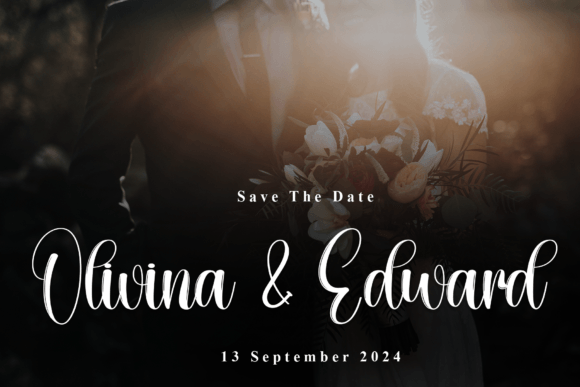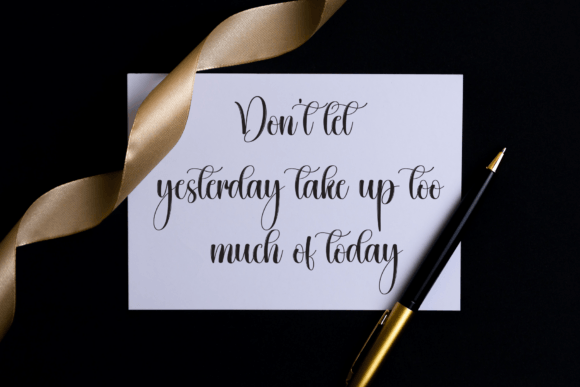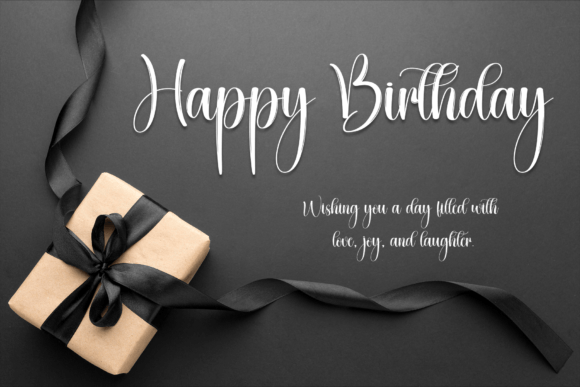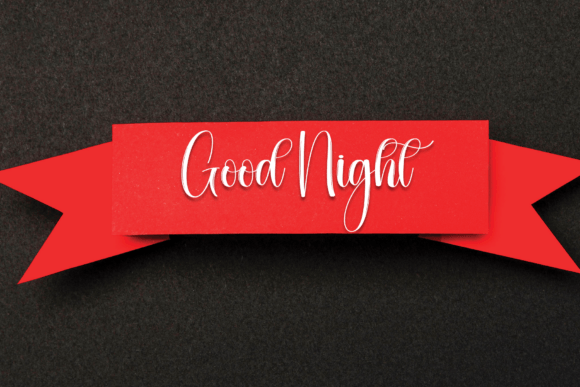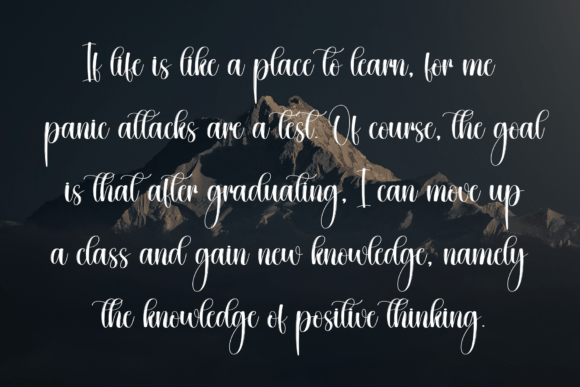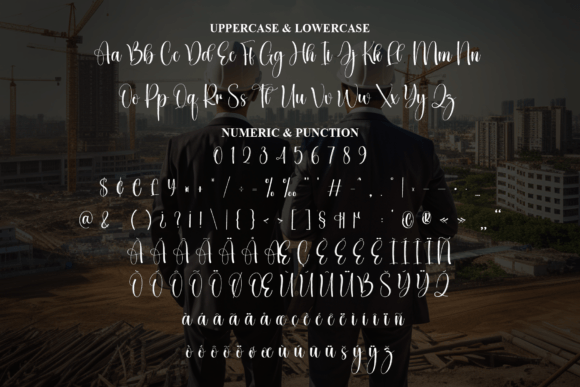
Introducing Builders Font: Elevate Your Designs with Elegance
Are you a designer, crafty enthusiast, or someone who loves to add a personal touch to their creative projects? Look no further than Builders Font, a stylish script font that is sure to take your designs to the next level. With its smooth and flowing design, Builders Font is perfect for creating beautiful invitations, posters, and more.
The Characteristics of Builders Font
Builders Font boasts an elegant and refined design, characterized by its smooth curves and lines. This stylish script font is carefully crafted to provide a sophisticated and luxurious feel to any design project. Whether you’re working on a wedding invitation, a poster, or a branding project, Builders Font is the perfect choice.
Why Choose Builders Font?
So, what makes Builders Font stand out from other fonts? Here are just a few reasons why designers and crafty enthusiasts love this font:
- Elegant Curves and Lines: Builders Font features beautiful, flowing curves and lines that add a touch of sophistication to any design.
- Easy to Read: Despite its elegant design, Builders Font is easy to read, making it perfect for use in a variety of projects, from invitations to posters.
- Scalable: Builders Font looks great in any size, whether you’re working on a small project or a large-scale design.
- Versatile: This font is perfect for a wide range of projects, including wedding invitations, posters, branding, and more.
How to Use Builders Font in Your Designs
Builders Font is incredibly easy to use and can be incorporated into a variety of design projects. Here are a few ideas to get you started:
- Wedding Invitations: Add a touch of elegance to your wedding invitations with Builders Font.
- Posters: Create eye-catching posters for events, promotions, or advertising campaigns.
- Branding: Use Builders Font to create a sophisticated and luxurious brand identity.
- Stationery: Add a personal touch to your stationery, including greeting cards, thank-you cards, and more.
Tips for Getting the Most Out of Builders Font
To get the most out of Builders Font, here are a few tips to keep in mind:
- Experiment with Sizes: Builders Font looks great in any size, so don’t be afraid to experiment with different sizes to find the one that works best for your project.
- Pair with Other Fonts: Builders Font pairs well with a variety of other fonts, so try pairing it with a bold font for added contrast.
- Use it Sparingly: While Builders Font is beautiful, it can be overwhelming if used too much. Use it sparingly to add a touch of elegance to your design.